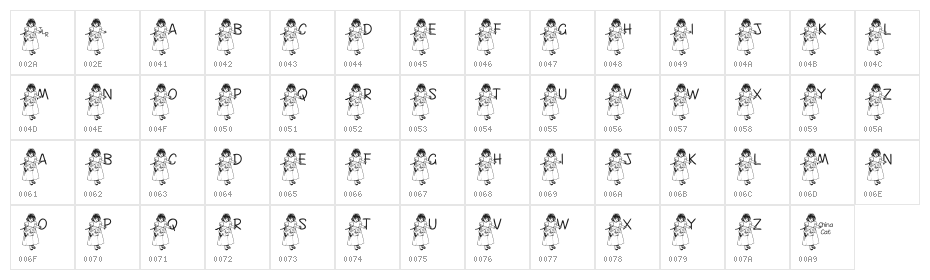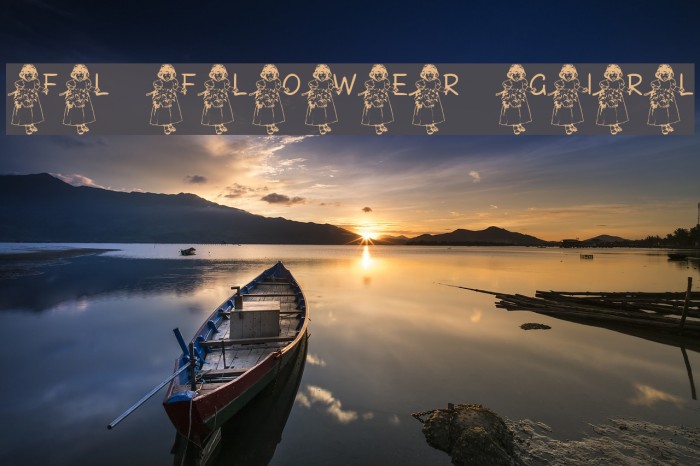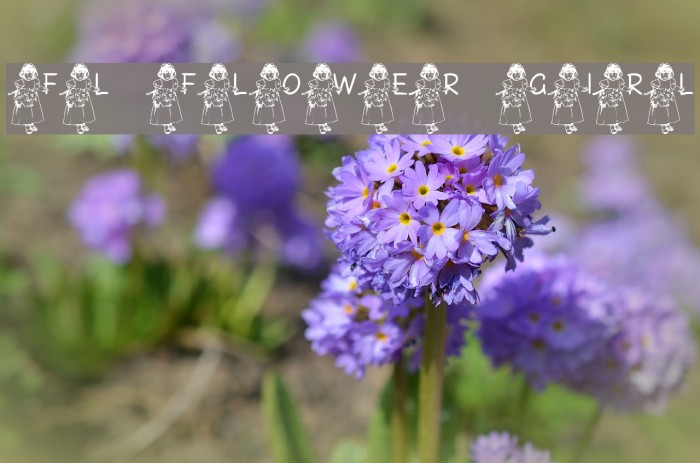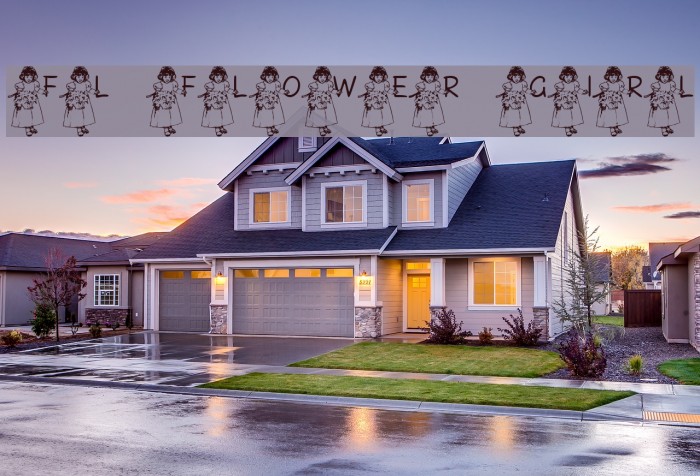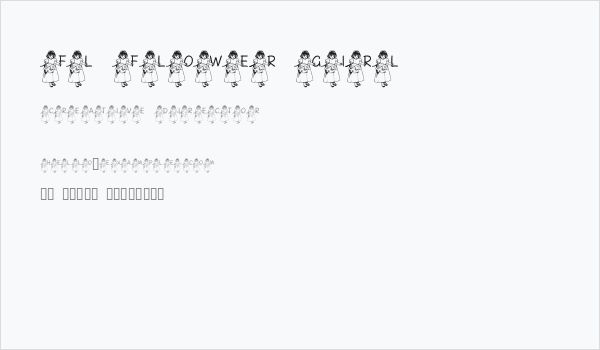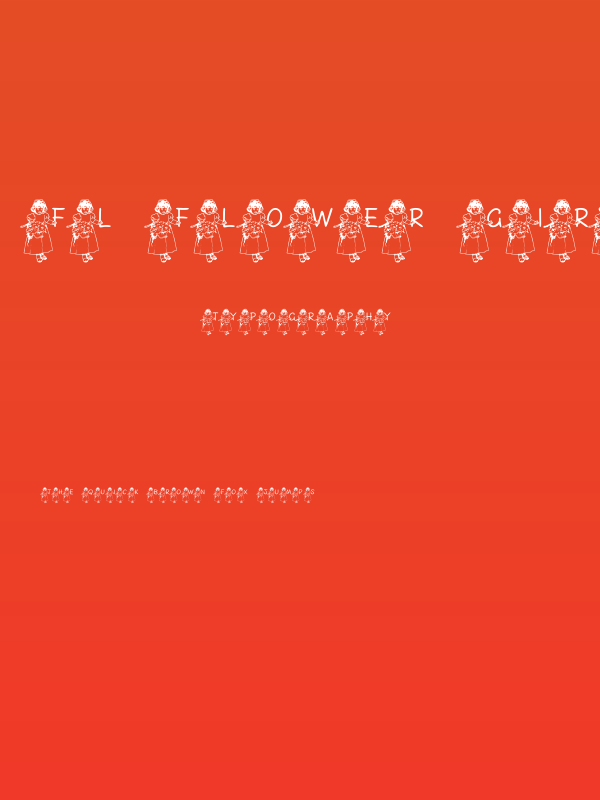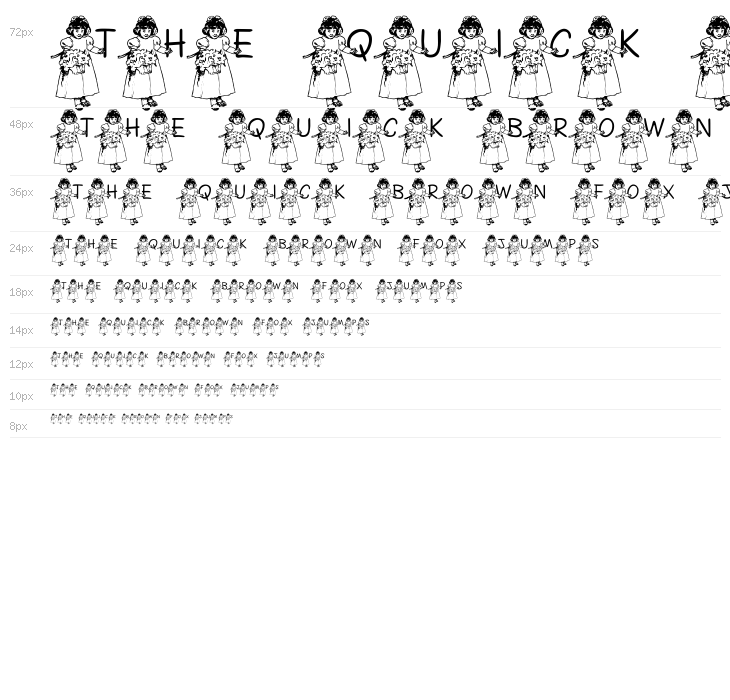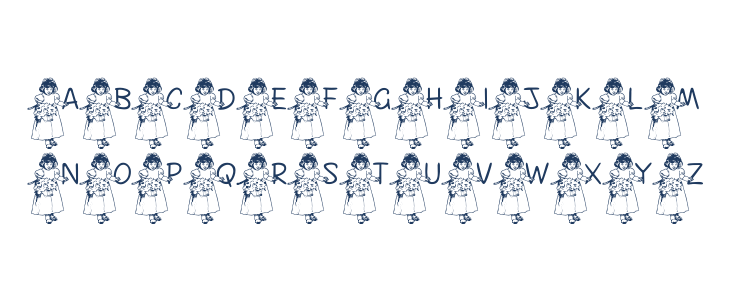
FL Flower Girl Font
FL Flower Girl Description
This is a decorative font featuring a whimsical design where each letter is accompanied by an illustration of a girl in a dress, giving it a playful and unique appearance. The letters themselves are bold and slightly irregular, adding to the charm and hand-drawn feel of the font. The combination of the illustrated character and the letterforms creates a distinctive style that stands out. This font is particularly suited for creative projects where a touch of fun and personality is desired. The overall look is both artistic and engaging, making it ideal for children's materials, playful branding, or any design that seeks to capture a sense of joy and creativity.
| Overall Style | Playful, Artistic |
| Proposed Projects | Ideal for children's books, playful branding, greeting cards, and creative invitations. |